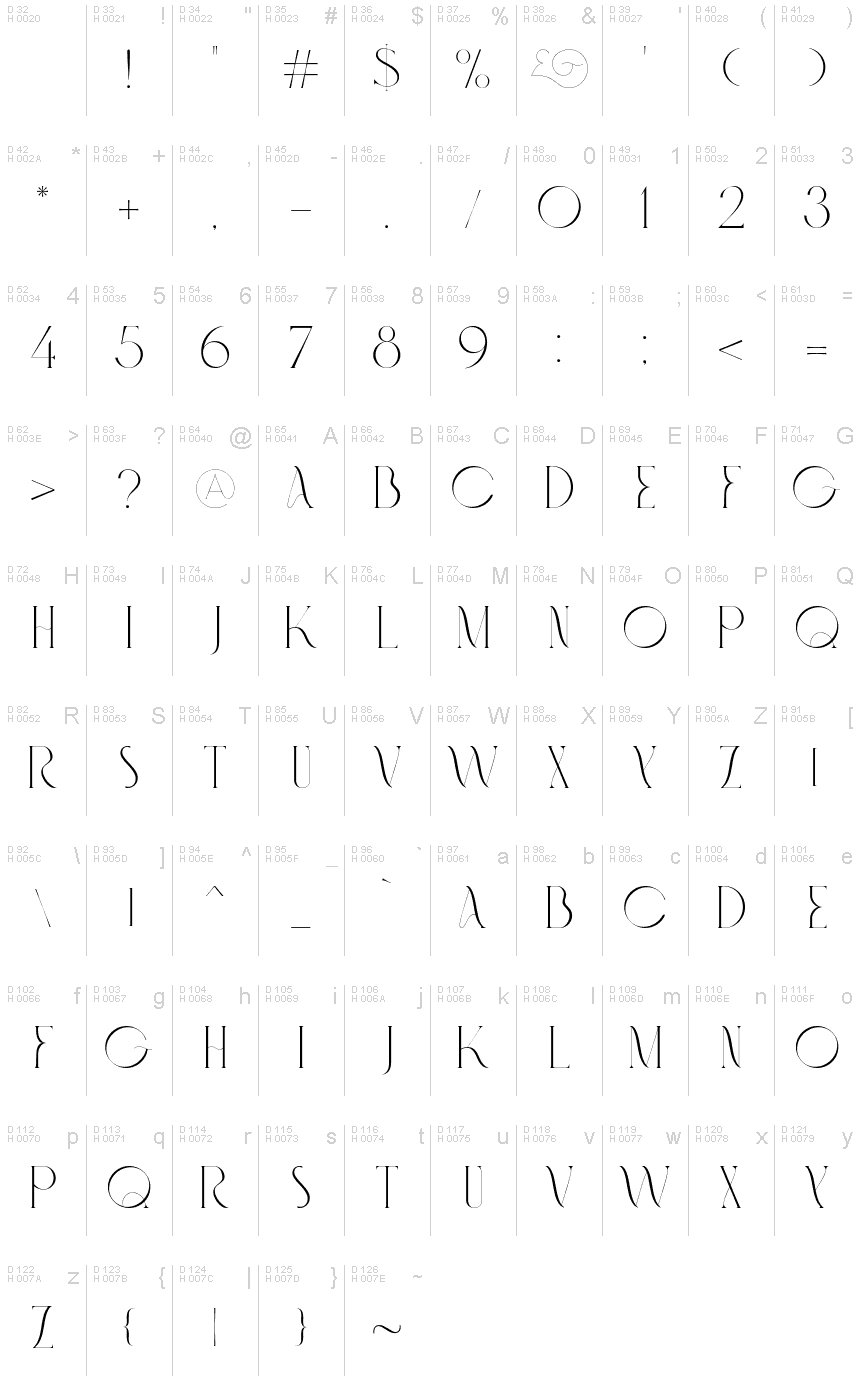
Fashionable-Regular
Fashionable Elegant Serif Font A contemporary, luxury, fashion-inspired condensed serif. Its a thin, chic, modern and creative serif font. This allows infinite combinations to give your project a unique style! Give your text a bit of elegance and personality. This is a display serif font that we recommend using in the following types of work; magazines (titles and layouts), logos and branding, invitations, quotes, blog headers, posters, advertising and body copy.